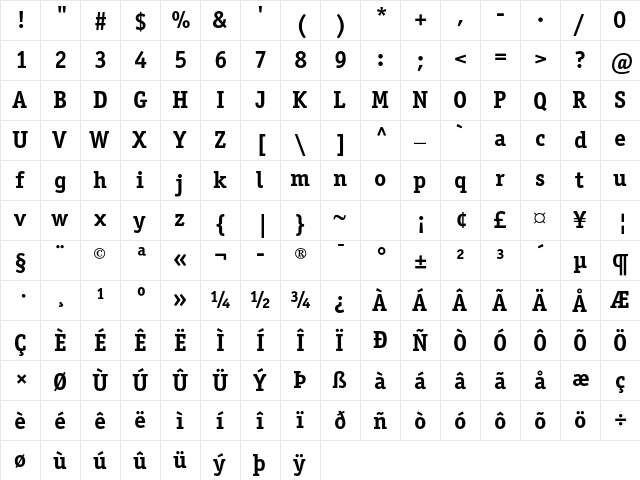
ITC Officina Serif Std Bold
| Designer | Erik Spiekermann |
Design Context for ITC Officina Serif Std Typeface
ITC Officina Serif Std carries the refined structure of traditional serif typography, with bracketed terminals and considered proportions that communicate credibility and craft. The heavy weight commands attention and anchors typographic hierarchies.
Pro Tip: Set ITC Officina Serif Std with slightly loose tracking in headlines to let each letterform's detail read clearly at display sizes.